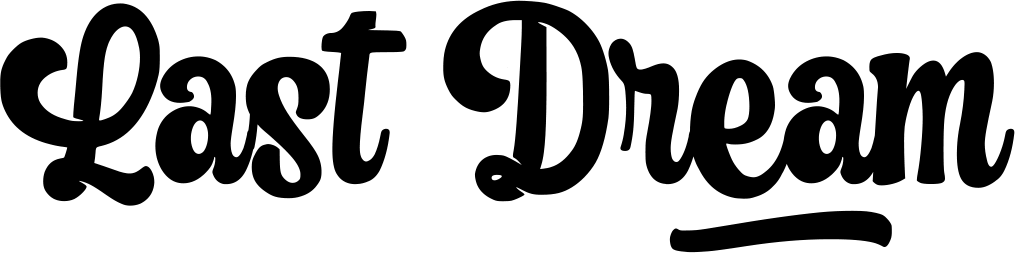
Last Dream Font
Last Dream font has two different types; it is recommended to use the second type less because it has less readability. This girly and handwritten font will give your design freshness and vitality.
Make your T-shirt designs be created in the best way and attract customers with this retro and 90s font. We highly recommend using this magnificent font for designing birthday cards and girly club flyers.